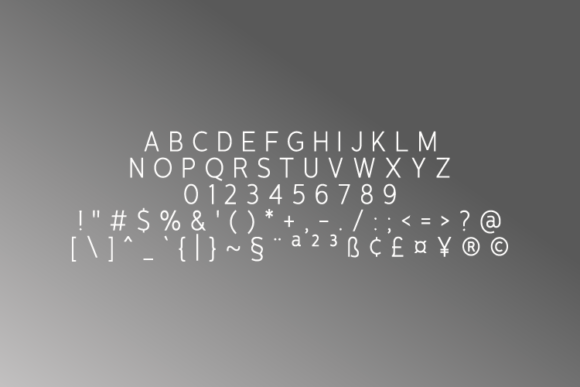
Introduction to Lotoush Regular Font
As a designer, there’s nothing quite like the thrill of bringing a creative project to life. It’s that moment when all the elements come together – color, texture, typography – and suddenly, your vision takes shape. But, have you ever felt like your font just isn’t quite right? That’s where the Lotoush Regular Font comes in – a game-changing design resource that’s sure to elevate your next project.
With its perfectly balanced mix of smooth and sharp edges, the Lotoush Regular Font is the perfect addition to any design need. Whether you’re working on a high-quality logo, a brochure with a transparent background, or a website that needs a touch of sophistication, this font is sure to impress. And the best part? It’s available for free download, making it an absolute must-have for designers on a budget.
So why is the Lotoush Regular Font so valuable for designers? Simply put, it’s the perfect combination of style and substance – a high-quality font that’s easy to use and guaranteed to make your creative projects shine.
Key Features of Lotoush Regular Font
- High-quality font designed for creative projects, available for free download as a design resource.
- Lotoush Regular Font offers a unique, elegant aesthetic with a transparent background, perfect for various design applications.
- Lotoush Regular Font is ideal for use in creative projects, including logos, branding materials, and digital artwork.
Honest Review: Lotoush Regular Font
I recently had the chance to work with the Lotoush Regular Font, and I must say it’s been a delightful experience. As a designer, I’m always on the lookout for high-quality design resources that can elevate my creative projects.
One of the things that works well with the Lotoush Regular Font is its versatility. It’s perfect for a wide range of applications, from print materials to digital projects. The font’s clean and modern design makes it an excellent choice for any creative project. ✨
Another great feature of the Lotoush Regular Font is its transparent background, making it easy to work with and edit. This is particularly useful when you’re working on complex designs or need to layer multiple elements.
- Design resource: Excellent choice for print and digital projects
Overall, I’m impressed with the Lotoush Regular Font. It’s a solid choice for designers looking for a high-quality font that can add a touch of elegance to their creative projects.
Tips for Getting the Most Out of Lotoush Regular Font
Use Lotoush Regular Font on a transparent background to create a clean and modern design. Combine it with other high-quality design resources for a cohesive look. Experiment with different font sizes and colors to add visual interest to your project.
Lotoush Regular Font is ideal for creative projects such as logos, brochures, and social media graphics. It’s also suitable for web design, particularly for titles and headings. With its high-quality design, it’s a great addition to any design resource library.